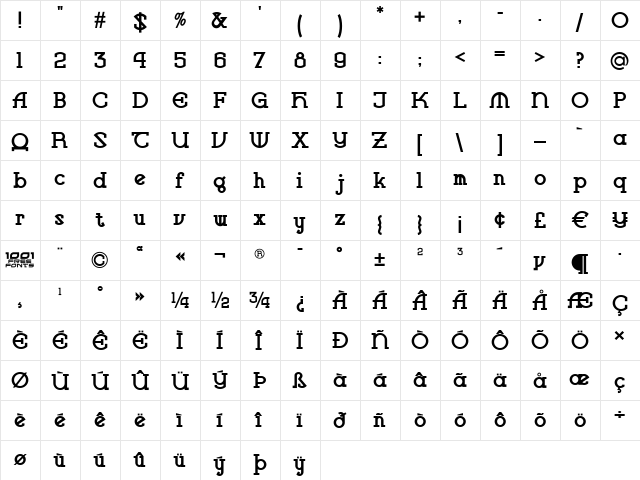
Vlaanderen Square NF Regular
Design Context for Vlaanderen Square NF Typeface
Vlaanderen Square NF is a composed and adaptable typeface that performs quietly and consistently across a wide range of design contexts.